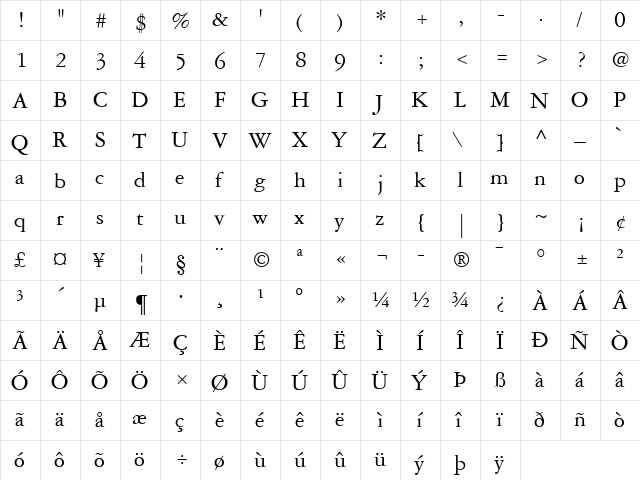
Garamond 3 LT Regular Font Preview
Garamond 3 LT Regular
Design Context for Garamond 3 LT Typeface
Garamond 3 LT is a composed and adaptable typeface that performs quietly and consistently across a wide range of design contexts. The delicate stroke weight brings airiness and refinement to layouts.